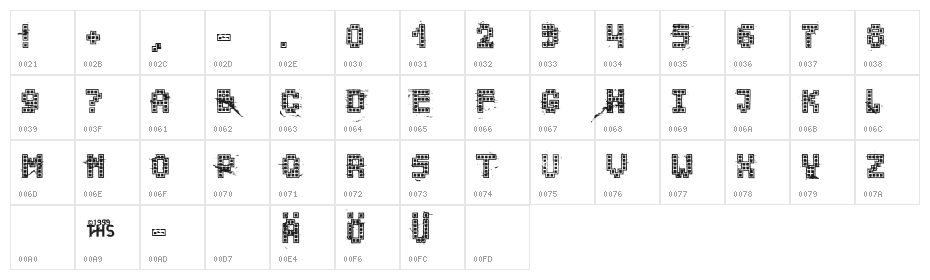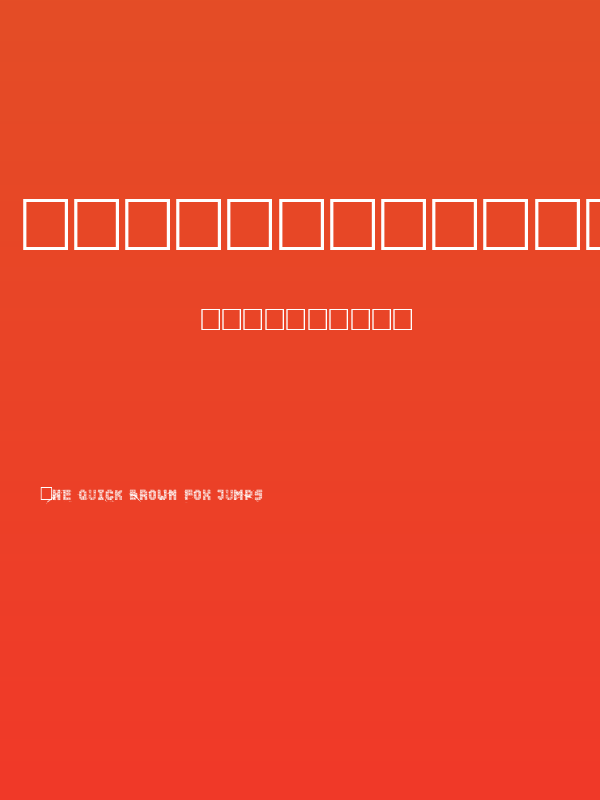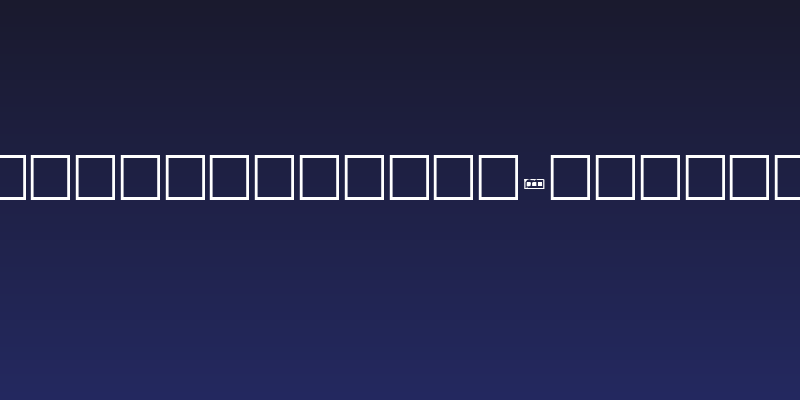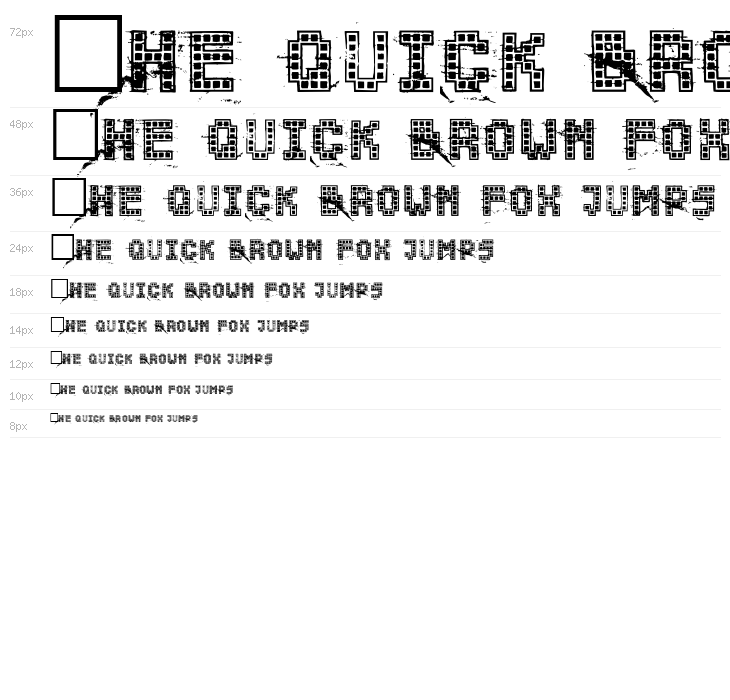
ChuckyMendoza-Drunken Font
ChuckyMendoza-Drunken Description
This font features a bold, distressed style with a blocky, pixelated appearance. Each character is outlined with a thick border, giving it a rugged, industrial feel. The interior of the letters is filled with a textured, grunge pattern that adds a sense of chaos and energy. The uppercase letters are uniform in height, while the numbers maintain the same bold, square design. This font is visually striking and commands attention, making it suitable for projects that require a strong, edgy aesthetic.
| Overall Style | Grunge, Industrial |
| Use Case | Headlines, Posters, Logos |
| Proposed Projects | Ideal for music album covers, urban-themed posters, video game graphics, or any project needing a gritty, industrial look. |